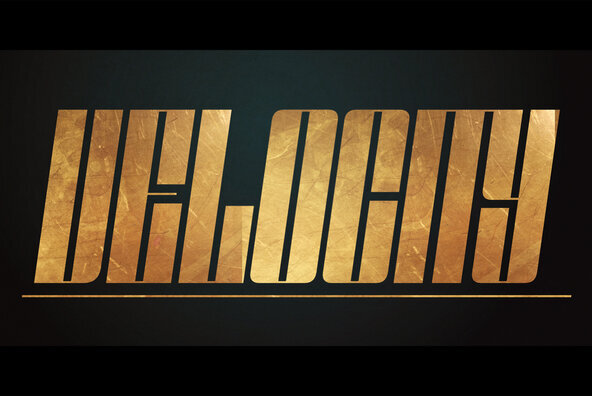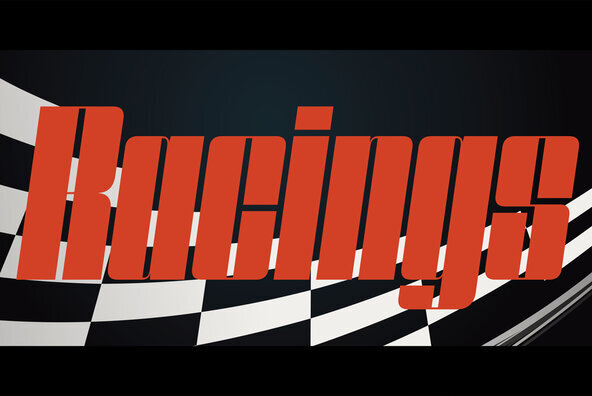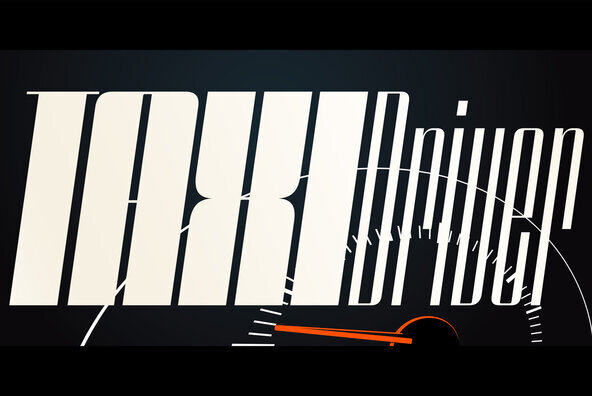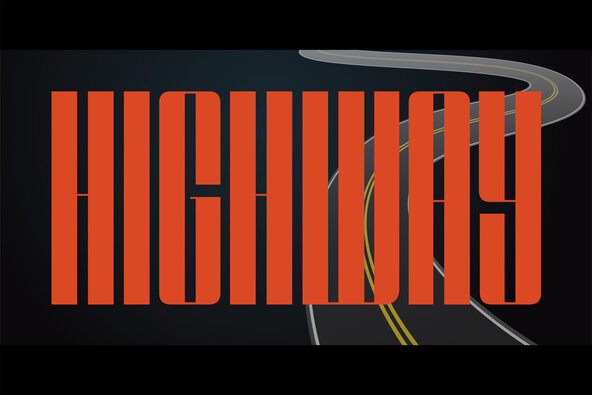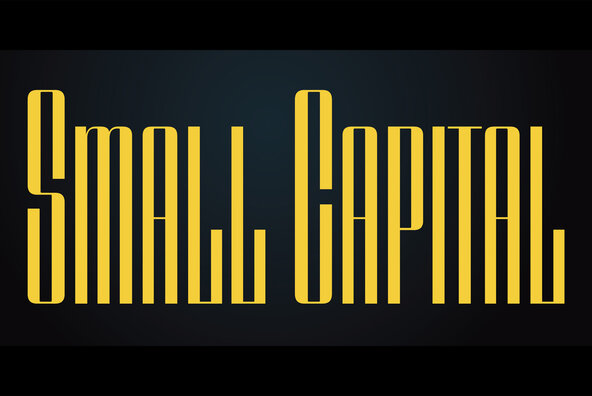
Speedometer is derived from Dimensions font family that is most narrow and black font for titling and logo. This speedometer is more elegant by its contrast between the thickness of stem and thinness of the arms than Dimensions. This contrast makes more vigorous and speedy impressions too. All 6 weights and italics have upper and lower cases, accented characters and small capital glyphs that can be used with OpenType smcp feature.